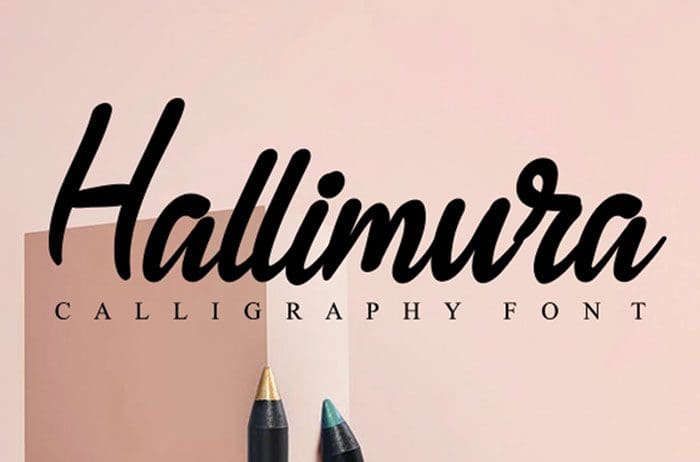
Hallimura Calligraphy Font
Hallimura calligraphy font, carefully handcrafted to become a true favorite. Its casual charm makes it appear wonderfully down-to-earth, readable and, ultimately, incredibly versatile. Designed this font by Andika Studio. You can also search more freeĀ Calligraphy Fonts.